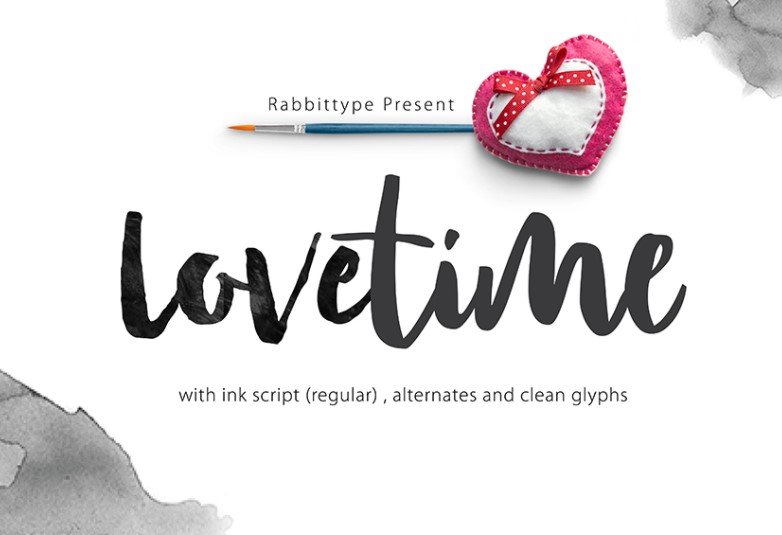
We are presenting the exceptional scripted typeface ideal for wedding invitations, greeting cards, and logo designs. The font in question, Lovetime Script Font, is a fantastic typeface available in its full version, offering various styles.
View Of Lovetime Script Font
This typeface that is suitable to use with selfie font has catcy look have lots of huge glyphs including uppercase and lowercase letters. Let’s view the picture below to see the sample.
Lovetime Script Font contains a larger numbers of textures, glyphs and preferably it is prime for presentations and moral videos.
The font contains brushed and brilliant typeface that can be used with averta font which has a popular texture so that can also be used in pairing also. That’s why each designer treated it as a really perfect font in all appreciate.
• Catalogs
• Banners
• Theme design (WordPress, Shopify, etc.)
• Images for websites and blogs
• Annual reports
• Museum exhibitions
• Posters, banners and billboards